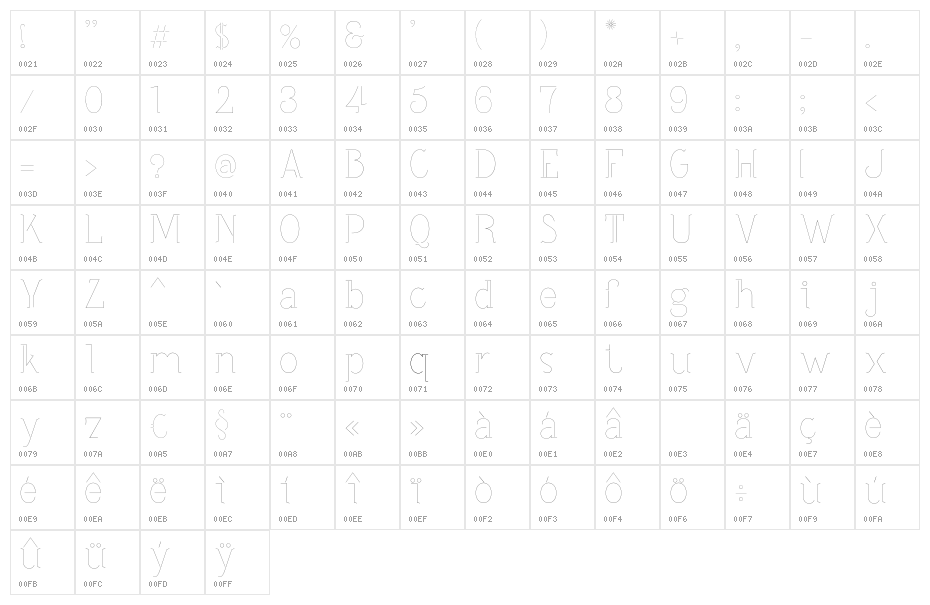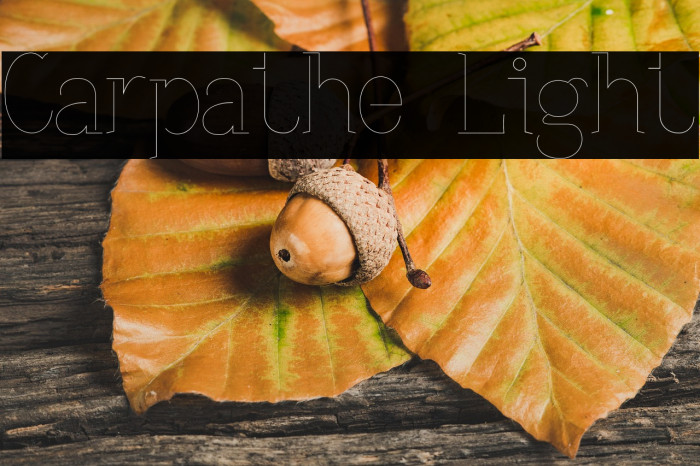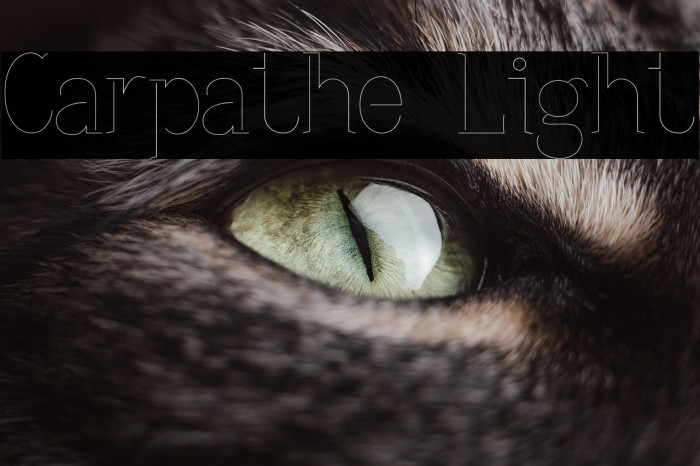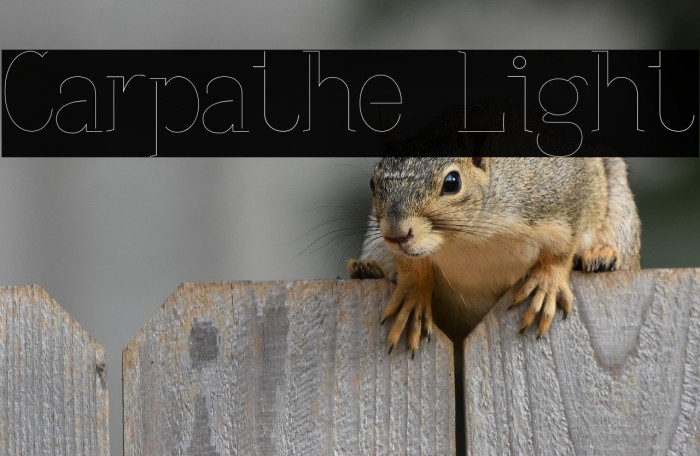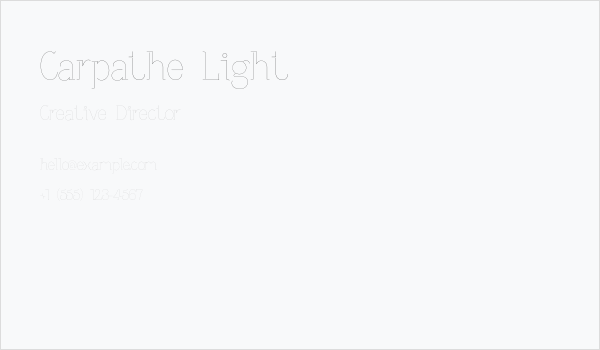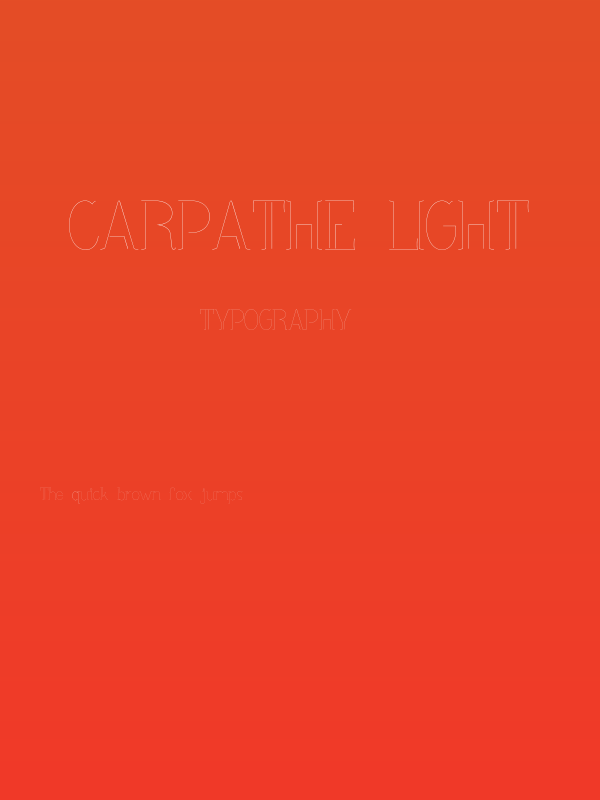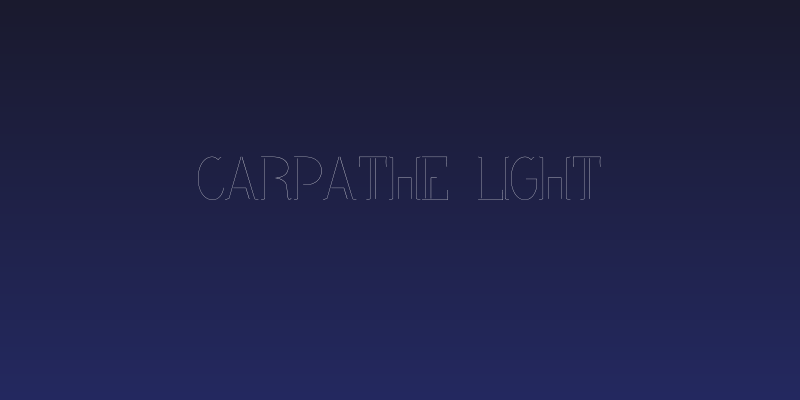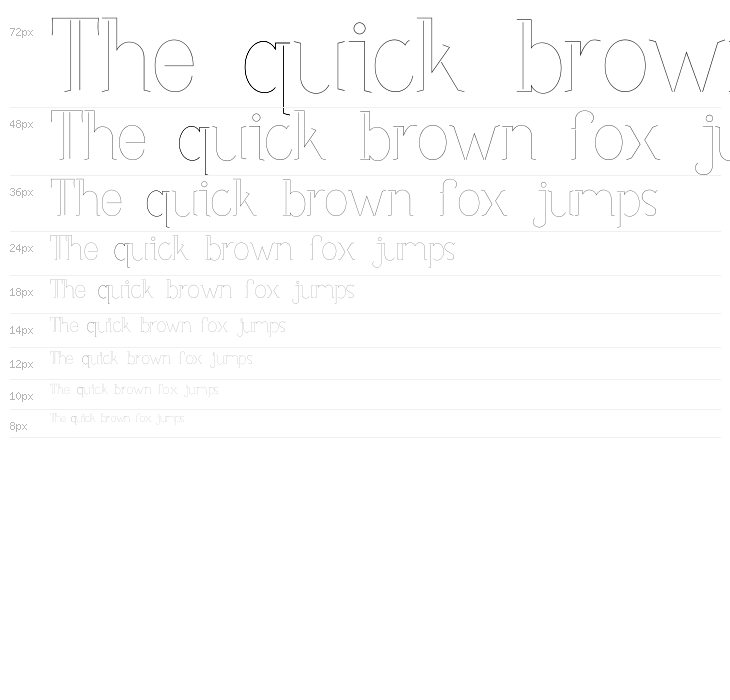
Carpathe Light Font
Carpathe Light Description
This font features a modern and elegant design with thin, clean lines and a geometric structure. The uppercase letters exhibit a unique blend of straight lines and subtle curves, creating a sophisticated and airy appearance. The lowercase letters maintain a consistent style, with a slight contrast in stroke thickness that adds to the font's refined look. Numbers and special characters are designed with the same attention to detail, ensuring a cohesive visual experience. The overall aesthetic is minimalistic yet distinctive, making it suitable for a variety of design applications.
| Proposed Projects | Ideal for branding, editorial design, and minimalist posters. |